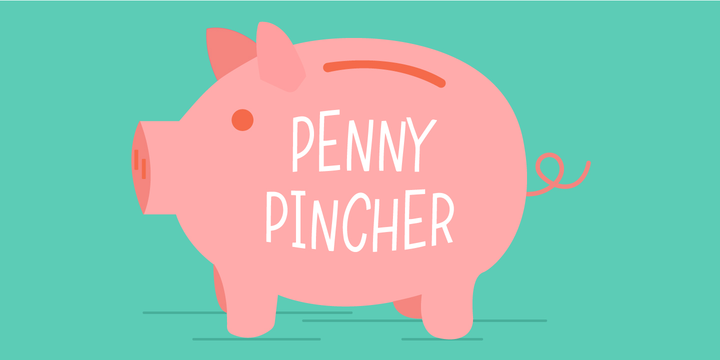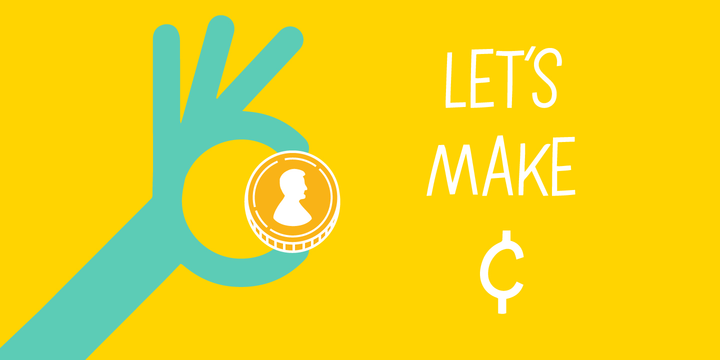
Penny Pincher is here to deliver a great fun and fancy at a super value. Penny Pincher is perfect for childrens books, cereal boxes and board games. Makes you wish you were a kid again.